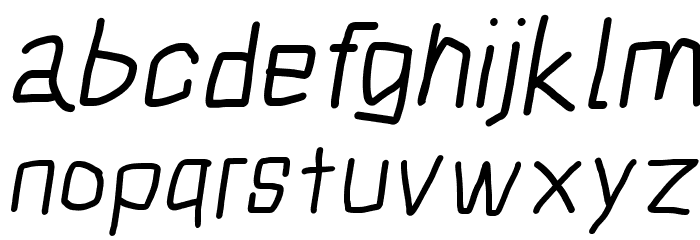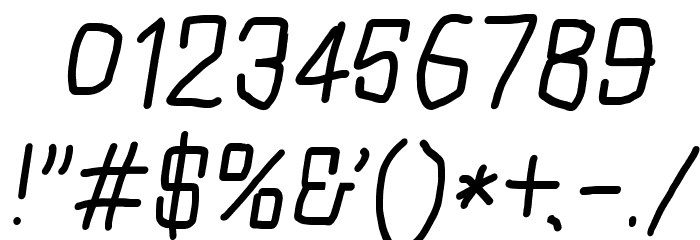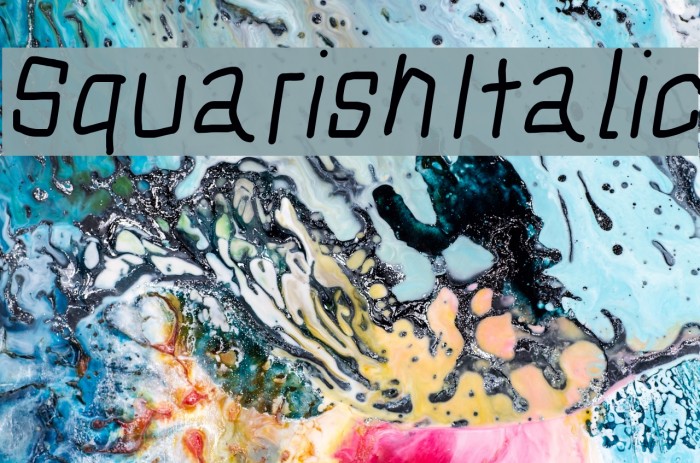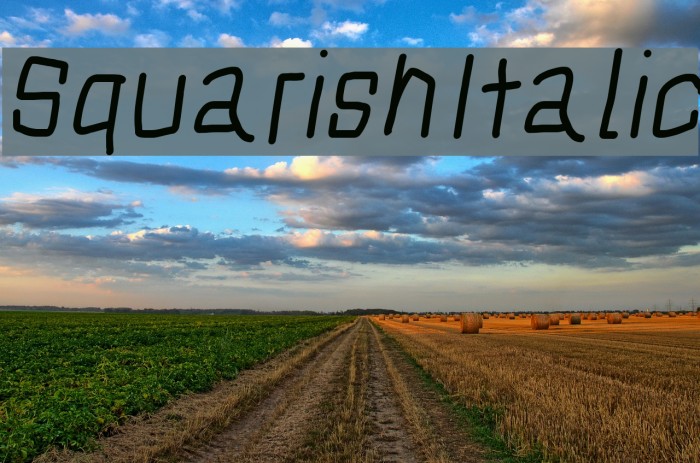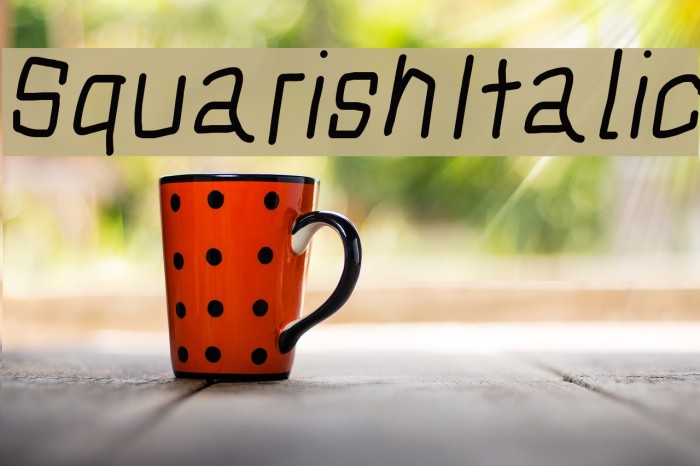
Squarish Italic Font
This font features a unique squarish and italicized style, combining modern geometric elements with a dynamic slant. The uppercase and lowercase letters maintain a consistent angular form, giving the typeface a structured yet fluid appearance. The numbers and special characters follow the same design principles, ensuring uniformity across all glyphs. The strokes are moderately thick, providing a balanced contrast that enhances readability while maintaining a distinctive look. This font's design is both contemporary and versatile, making it suitable for a variety of creative applications.
A squarish, italicized font with geometric and dynamic characteristics.
- Proposed Projects: Ideal for modern branding, tech-related designs, posters, and digital media.
- Use Case: Headlines, Logos, Digital media